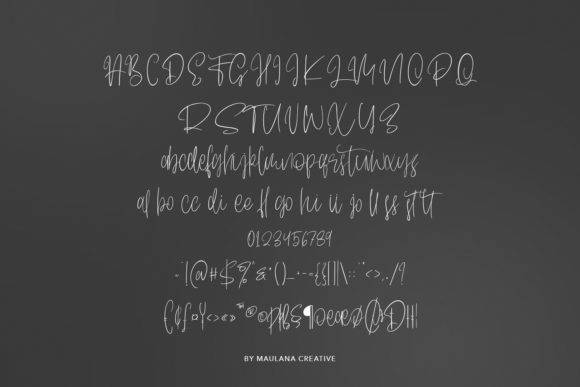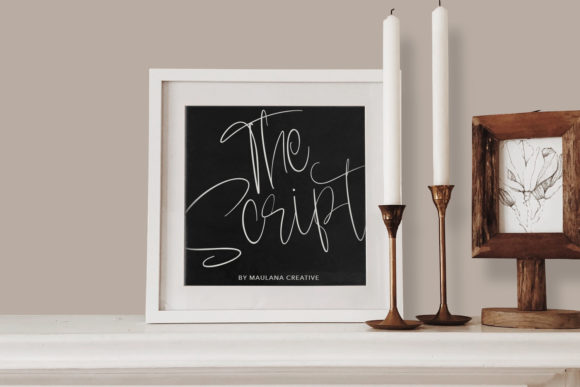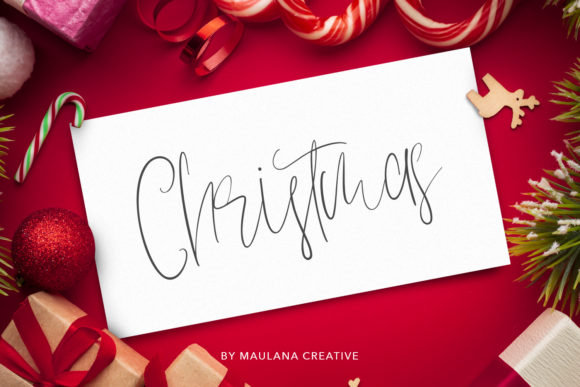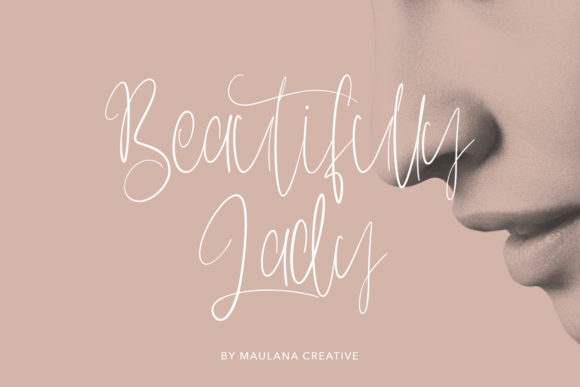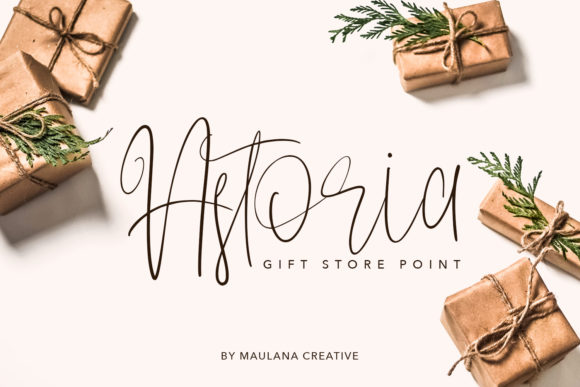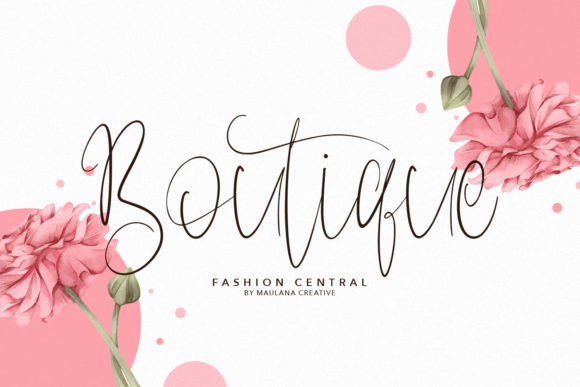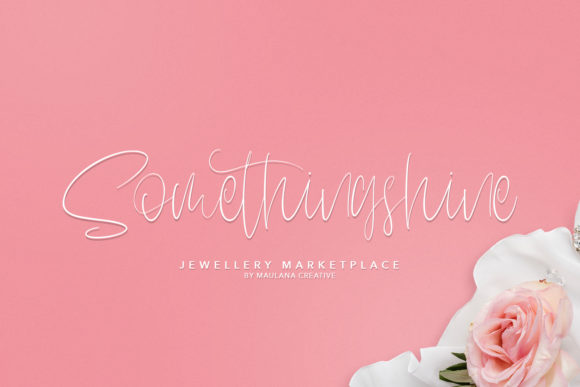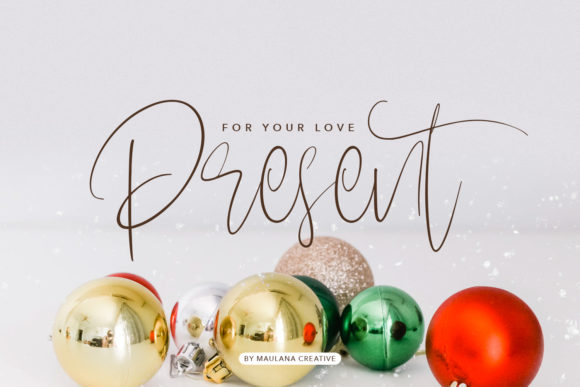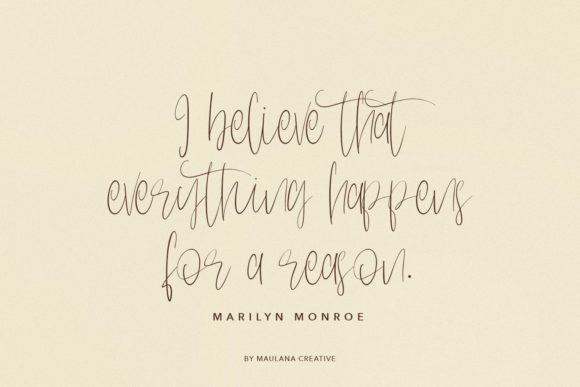
Sentilum Font
About Sentilum Font
Sentilum is a relaxed and lovely handwritten font. It looks stunning on wedding invitations, thank you cards, quotes, greeting cards, logos, business cards and every other design which needs a handwritten touch.